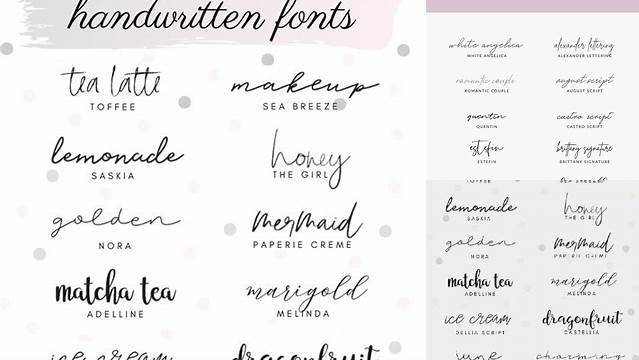
Feminine Cursive Tattoo Fonts: Ideas & Inspiration
Hey guys! Are you looking for the perfect handwritten feminine cursive tattoo fonts? You've come to the right place! Getting a tattoo is a big decision, and choosing the right font is crucial, especially if you're aiming for something elegant and feminine. Let's dive into the world of cursive tattoo fonts and find the perfect style for your next ink!
1. The Allure of Handwritten Fonts for Tattoos
Handwritten feminine cursive tattoo fonts add a personal and intimate touch to your body art. Unlike blocky or generic fonts, handwritten styles mimic natural handwriting, making each tattoo unique. The flow and curves of cursive fonts bring an element of sophistication and grace, ideal for conveying emotions, memories, or meaningful quotes. When considering handwritten feminine cursive tattoo fonts, think about the message you want to express. Do you want it to be delicate and subtle, or bold and expressive? The choice of font will greatly influence the overall impact of your tattoo. Popular choices often include names, dates, or inspirational words, each rendered beautifully in a flowing cursive script. Ultimately, the beauty of handwritten feminine cursive tattoo fonts lies in their ability to transform simple text into a work of art that resonates with your individuality.
2. Why Cursive Fonts are Ideal for Feminine Tattoos
Cursive fonts, with their elegant loops and flowing lines, naturally exude femininity, making them an ideal choice for handwritten feminine cursive tattoo fonts. The soft, connected strokes create a sense of grace and beauty, perfectly complementing delicate designs or personal messages. When you think about handwritten feminine cursive tattoo fonts, consider how the continuous flow of the script can symbolize continuity, connection, and the passage of time. This makes them particularly suitable for tattoos that represent relationships, memories, or personal growth. Moreover, the inherent readability of many cursive fonts ensures that your message is clear and easily understood, while still maintaining an artistic flair. Whether you're opting for a small, discreet tattoo or a larger, more elaborate piece, cursive fonts can be adapted to suit your vision, enhancing the overall aesthetic appeal and feminine charm of your tattoo.
3. Popular Handwritten Cursive Fonts for Women's Tattoos
When it comes to handwritten feminine cursive tattoo fonts, several styles stand out as perennial favorites. Samantha Script is renowned for its elegant flourishes and refined appearance, making it a top choice for names, quotes, and meaningful phrases. Aphrodite Pro offers a more whimsical and romantic feel, perfect for adding a touch of playfulness to your tattoo. For those seeking a more modern and edgy look, Sign Painter provides a bold and striking cursive style that commands attention. Other popular options include Belinda, Edwardian Script, and CAC Champagne, each offering a unique blend of elegance and personality. Ultimately, the best choice for handwritten feminine cursive tattoo fonts depends on your individual style and the message you want to convey. Take the time to explore different options and see which one resonates most with you. Consider how the font will look on your skin and how well it complements any accompanying designs. With careful consideration, you can find the perfect cursive font to create a tattoo that is both beautiful and meaningful.
4. How to Choose the Right Font Size for Legibility
Choosing the right font size is paramount for ensuring that your handwritten feminine cursive tattoo fonts remain legible over time. A font that looks beautiful on paper may appear blurry or illegible when inked onto the skin, especially as the tattoo ages and the ink spreads slightly. To avoid this, it's crucial to consider the complexity of the font and the size of the tattoo. Intricate cursive fonts with delicate swirls and fine lines may require a larger size to maintain clarity. Before committing to a specific size, ask your tattoo artist to create a stencil and apply it to your skin to get a realistic preview of how the tattoo will look. This is a critical step in the process. Also, consider the placement of the tattoo. Areas with more skin movement, such as the wrists or ankles, may require a slightly larger font size to compensate for the potential distortion. Ultimately, prioritizing legibility will ensure that your handwritten feminine cursive tattoo fonts remain beautiful and meaningful for years to come.
5. Placement Ideas for Cursive Tattoos
Placement plays a huge role in the overall look and feel of your handwritten feminine cursive tattoo fonts. A delicate cursive tattoo can look stunning on the wrist, adding a touch of elegance to your everyday movements. The collarbone is another popular choice, offering a subtle yet sophisticated placement that can be easily revealed or concealed. For those seeking a more discreet option, the ankle or foot can be ideal, providing a personal and intimate touch. The back of the neck is also a beautiful location for handwritten feminine cursive tattoo fonts, allowing the script to flow gracefully along the curve of your spine. If you're considering a larger piece, the ribs or upper back offer ample space for more elaborate designs and longer quotes. Ultimately, the best placement depends on your personal style and the message you want to convey. Consider how the tattoo will interact with your body's natural contours and choose a location that enhances its beauty and meaning. With careful planning, you can find the perfect spot to showcase your handwritten feminine cursive tattoo fonts.
6. Combining Cursive Fonts with Other Design Elements
Handwritten feminine cursive tattoo fonts don't have to stand alone; they can be beautifully combined with other design elements to create a more complex and visually appealing tattoo. Floral motifs, such as roses, lilies, or cherry blossoms, can add a touch of romance and femininity to your cursive tattoo. Geometric patterns can provide a modern and edgy contrast to the flowing lines of the script. Incorporating symbols, such as hearts, stars, or birds, can add personal meaning and symbolism to your design. When combining handwritten feminine cursive tattoo fonts with other elements, it's important to maintain balance and harmony. Avoid overcrowding the design with too many elements, and ensure that the font complements the overall aesthetic. Work closely with your tattoo artist to create a cohesive design that reflects your individual style and personality. With careful planning and execution, you can create a tattoo that is both beautiful and meaningful.
7. The Importance of Choosing a Skilled Tattoo Artist
Selecting a skilled and experienced tattoo artist is crucial when working with handwritten feminine cursive tattoo fonts. The delicate lines and intricate details of cursive fonts require precision and expertise to execute flawlessly. A skilled artist will have a steady hand and a keen eye for detail, ensuring that the font is rendered accurately and beautifully on your skin. Before committing to an artist, review their portfolio to assess their experience with cursive tattoos and their overall artistic style. Look for examples of clean lines, consistent spacing, and well-executed lettering. Don't hesitate to ask questions about their process, their equipment, and their experience with different types of skin. A reputable artist will be happy to answer your questions and provide guidance to help you make informed decisions. Ultimately, investing in a skilled artist will ensure that your handwritten feminine cursive tattoo fonts are executed to the highest standards, resulting in a tattoo that you'll be proud to wear for years to come.
8. Aftercare Tips to Keep Your Cursive Tattoo Looking Fresh
Proper aftercare is essential for preserving the beauty and legibility of your handwritten feminine cursive tattoo fonts. Immediately after getting your tattoo, follow your artist's instructions carefully. This typically involves keeping the tattoo clean and moisturized. Gently wash the tattooed area with mild soap and water several times a day, and pat it dry with a clean towel. Apply a thin layer of tattoo-specific aftercare ointment to keep the skin hydrated and prevent scabbing. Avoid excessive sun exposure, as UV rays can fade the ink and damage the skin. Wear loose-fitting clothing to prevent friction and irritation. During the healing process, avoid scratching or picking at the tattoo, as this can damage the ink and lead to scarring. With proper aftercare, your handwritten feminine cursive tattoo fonts will heal beautifully, retaining their crisp lines and vibrant color for years to come.
9. Exploring Different Cursive Font Styles: Script vs. Calligraphy
When delving into the world of handwritten feminine cursive tattoo fonts, it's helpful to understand the nuances between script and calligraphy styles. Script fonts typically mimic everyday handwriting, offering a natural and flowing appearance. They often feature simple, connected letters with minimal embellishments. Calligraphy fonts, on the other hand, are more ornate and decorative, drawing inspiration from traditional penmanship techniques. They often feature elaborate flourishes, varying stroke widths, and a more formal aesthetic. The choice between script and calligraphy depends on your personal style and the overall look you want to achieve. Script fonts are ideal for conveying a casual and intimate feel, while calligraphy fonts add a touch of elegance and sophistication. Consider the message you want to express and choose a font style that complements your vision. Whether you opt for a simple script or an elaborate calligraphy, handwritten feminine cursive tattoo fonts can add a unique and personal touch to your body art.
10. Monoline Cursive Fonts: A Modern Twist
For a modern and minimalist take on handwritten feminine cursive tattoo fonts, consider exploring monoline cursive fonts. Unlike traditional cursive fonts with varying stroke widths, monoline fonts feature consistent line thickness throughout each letter, creating a clean and streamlined appearance. This style is particularly well-suited for smaller tattoos or designs with intricate details, as the consistent line weight ensures legibility and prevents the ink from blurring over time. Monoline cursive fonts offer a contemporary aesthetic that is both stylish and understated, making them a popular choice for those seeking a subtle yet impactful tattoo. Whether you're opting for a name, a quote, or a simple symbol, handwritten feminine cursive tattoo fonts in a monoline style can add a touch of modern elegance to your body art.
11. Vintage-Inspired Cursive Fonts for a Timeless Look
If you're drawn to classic aesthetics, vintage-inspired handwritten feminine cursive tattoo fonts can add a touch of timeless elegance to your tattoo. These fonts often evoke the charm of old-fashioned penmanship, featuring graceful curves, elaborate flourishes, and a sense of nostalgia. Vintage cursive fonts can range from delicate and romantic to bold and dramatic, offering a wide range of options to suit your personal style. Popular choices include Spencerian script, Copperplate script, and Art Deco-inspired lettering. When choosing a vintage cursive font, consider the overall tone and message you want to convey. A delicate Spencerian script can add a touch of romance and sophistication, while a bold Art Deco font can create a sense of glamour and boldness. Whether you're paying homage to a bygone era or simply seeking a timeless aesthetic, handwritten feminine cursive tattoo fonts in a vintage style can create a tattoo that is both beautiful and meaningful.
12. Adding Flourishes and Swashes to Your Cursive Tattoo
Enhance the elegance and personality of your handwritten feminine cursive tattoo fonts by incorporating flourishes and swashes. These decorative elements can add a touch of whimsy, sophistication, or drama to your design. Flourishes are ornamental strokes that extend from the letters, adding visual interest and a sense of movement. Swashes are extended versions of letters, often featuring elegant curves and loops. When adding flourishes and swashes, it's important to maintain balance and avoid overcrowding the design. Use them sparingly to highlight key letters or words, and ensure that they complement the overall aesthetic of the font. Work closely with your tattoo artist to create a cohesive design that incorporates flourishes and swashes in a tasteful and harmonious way. With careful planning and execution, you can transform your handwritten feminine cursive tattoo fonts into a stunning work of art.
13. Cursive Fonts with a Calligraphic Influence
For those who appreciate the art of calligraphy, consider handwritten feminine cursive tattoo fonts with a calligraphic influence. These fonts draw inspiration from traditional penmanship techniques, featuring varying stroke widths, elegant curves, and a sense of formality. Calligraphic cursive fonts can add a touch of sophistication and refinement to your tattoo, making them ideal for conveying meaningful quotes, names, or dates. Popular choices include Copperplate script, Spencerian script, and Italic script. When choosing a calligraphic cursive font, consider the overall tone and message you want to convey. A delicate Copperplate script can add a touch of romance and elegance, while a bold Italic script can create a sense of confidence and strength. Whether you're a calligraphy enthusiast or simply seeking a refined aesthetic, handwritten feminine cursive tattoo fonts with a calligraphic influence can create a tattoo that is both beautiful and meaningful.
14. Bold vs. Delicate Cursive Fonts: Which is Right for You?
The choice between bold and delicate handwritten feminine cursive tattoo fonts depends on your personal style and the overall impact you want to achieve. Bold cursive fonts feature thicker strokes and a more pronounced presence, making them ideal for larger tattoos or designs that need to stand out. They convey a sense of confidence, strength, and modernity. Delicate cursive fonts, on the other hand, feature thinner strokes and a more subtle appearance, making them ideal for smaller tattoos or designs that require a touch of elegance and refinement. They convey a sense of grace, femininity, and sophistication. Consider the size and placement of your tattoo, as well as your personal style, when choosing between bold and delicate cursive fonts. A bold font may be better suited for a larger tattoo on the back or ribs, while a delicate font may be more appropriate for a smaller tattoo on the wrist or ankle. Ultimately, the best choice depends on your individual preferences and the message you want to convey. Whichever you choose, handwritten feminine cursive tattoo fonts can add a unique and personal touch to your body art.
15. Matching Cursive Fonts to Your Personal Style
Your choice of handwritten feminine cursive tattoo fonts should reflect your unique personal style. Are you drawn to classic elegance, modern minimalism, or bohemian whimsy? There's a cursive font to match every aesthetic. If you favor a classic and sophisticated look, consider elegant scripts like Samantha Script or Belinda. For a modern and minimalist vibe, explore monoline cursive fonts or those with clean, simple lines. If you're more of a free spirit, bohemian-inspired cursive fonts with flowing lines and artistic flourishes might be the perfect fit. Consider your existing wardrobe, jewelry, and overall style when selecting a font. Your tattoo should feel like a natural extension of your personality, not a jarring addition. Spend time browsing different fonts and envisioning how they would look on your skin. Handwritten feminine cursive tattoo fonts offer endless possibilities for expressing your individuality, so take your time and find the perfect match.
16. The Longevity of Cursive Tattoos: Factors to Consider
Several factors influence the longevity of handwritten feminine cursive tattoo fonts. Ink quality, the artist's skill, tattoo placement, and aftercare all play crucial roles in how well your tattoo holds up over time. High-quality tattoo ink is more resistant to fading and blurring, ensuring that your tattoo remains crisp and vibrant for years to come. An experienced tattoo artist will know how to apply the ink properly to maximize its longevity. Placement is also key. Areas that experience a lot of friction or sun exposure, such as the wrists or ankles, may fade more quickly than areas that are protected by clothing. Proper aftercare, including keeping the tattoo clean, moisturized, and protected from the sun, is essential for preventing premature fading. By considering these factors and taking proactive steps to care for your tattoo, you can ensure that your handwritten feminine cursive tattoo fonts remain beautiful and legible for decades to come.
17. Cursive Tattoo Inspiration: Quotes, Names, and Dates
Handwritten feminine cursive tattoo fonts are perfect for immortalizing meaningful quotes, names, and dates on your skin. Inspirational quotes can serve as daily reminders of your values and aspirations. Names of loved ones can be a beautiful way to honor their presence in your life. Significant dates, such as birthdays, anniversaries, or milestones, can be commemorated with a cursive tattoo that serves as a lasting reminder of important moments. When choosing a quote, name, or date for your cursive tattoo, consider its personal significance and how it will resonate with you over time. Opt for a font that complements the overall tone and message of the text. A delicate cursive font may be ideal for a romantic quote, while a bold font may be more appropriate for a powerful statement. Whatever you choose, handwritten feminine cursive tattoo fonts can transform simple words into a work of art that holds deep personal meaning.
18. The Significance of Line Weight in Cursive Fonts
Line weight, or stroke thickness, plays a significant role in the overall appearance of handwritten feminine cursive tattoo fonts. A thicker line weight creates a bolder and more pronounced look, making the tattoo stand out and commanding attention. This can be ideal for larger tattoos or those that need to be easily visible from a distance. A thinner line weight, on the other hand, creates a more delicate and subtle appearance, adding a touch of elegance and refinement. This can be perfect for smaller tattoos or those that are meant to be more discreet. Consider the size, placement, and overall style of your tattoo when choosing a line weight. A thicker line weight may be better suited for a larger tattoo on the back or ribs, while a thinner line weight may be more appropriate for a smaller tattoo on the wrist or ankle. Ultimately, the best choice depends on your individual preferences and the message you want to convey. Regardless of your choice, handwritten feminine cursive tattoo fonts can add a unique and personal touch to your body art.
19. How to Test Drive Your Cursive Font Before Getting Inked
Before committing to handwritten feminine cursive tattoo fonts, it's wise to "test drive" your chosen font. Use online font generators or graphic design software to visualize how the font will look with your desired text. Print out the design in various sizes and place it on the area of your body where you're considering getting the tattoo. This will give you a realistic preview of the tattoo's size, placement, and overall aesthetic. Ask your tattoo artist to create a stencil of the design and apply it to your skin. This will allow you to see how the font interacts with your body's natural contours and how it looks in different lighting conditions. Don't hesitate to make adjustments to the font size, placement, or design until you're completely satisfied. Taking the time to test drive your handwritten feminine cursive tattoo fonts will help you avoid any regrets and ensure that you love your tattoo for years to come.
20. The Art of Spacing in Cursive Tattoo Design
Proper spacing is crucial for the legibility and aesthetic appeal of handwritten feminine cursive tattoo fonts. Insufficient spacing can make the letters appear crowded and difficult to read, while excessive spacing can make the tattoo look disjointed and unbalanced. Work closely with your tattoo artist to ensure that the spacing between letters and words is consistent and visually pleasing. Consider the size and placement of the tattoo when determining the appropriate spacing. Larger tattoos may require more spacing to prevent the letters from blurring together, while smaller tattoos may need less spacing to maintain a cohesive look. Pay attention to the natural flow of the cursive font and ensure that the spacing enhances its beauty and readability. By mastering the art of spacing, you can create handwritten feminine cursive tattoo fonts that are both beautiful and legible.
21. Combining Different Fonts for a Unique Tattoo
While handwritten feminine cursive tattoo fonts are beautiful on their own, consider combining them with other fonts to create a more unique and personalized design. Pair a delicate cursive font with a bold sans-serif font for a striking contrast. Use a cursive font for the main text and a simple block font for a subtitle or date. Experiment with different font combinations until you find a pairing that resonates with your personal style. When combining fonts, it's important to maintain balance and harmony. Choose fonts that complement each other in terms of style, weight, and overall aesthetic. Avoid using too many different fonts, as this can make the design look cluttered and confusing. Work closely with your tattoo artist to create a cohesive design that seamlessly integrates different fonts into a visually appealing composition. With careful planning and execution, you can create handwritten feminine cursive tattoo fonts that are truly one-of-a-kind.
22. Consider the Skin Tone
Your skin tone can affect how your tattoo looks. Some ink colors may show up better on certain skin tones. Discuss the best ink colors with your tattoo artist for your handwritten feminine cursive tattoo fonts.
23. Think About Fade Resistance
Some inks fade faster than others. Black ink usually lasts longer. Ask your tattoo artist about fade-resistant inks to keep your handwritten feminine cursive tattoo fonts looking fresh.
24. Temporary Tattoos
Try a temporary tattoo first. This lets you see if you like the design and placement before getting a permanent handwritten feminine cursive tattoo fonts.
25. Tattoo Removal
Tattoo removal is possible but can be costly and painful. Think carefully before getting a handwritten feminine cursive tattoo fonts.
26. Local Culture and Symbolism
Be aware of cultural meanings of symbols in your tattoo. Make sure your handwritten feminine cursive tattoo fonts are respectful and appropriate.
27. Legal Requirements
Tattooing has age and safety laws. Make sure your tattoo artist is licensed and follows health rules for handwritten feminine cursive tattoo fonts.
28. Pain Tolerance
Tattoos hurt, but some spots are more painful. Plan your handwritten feminine cursive tattoo fonts based on your pain tolerance.